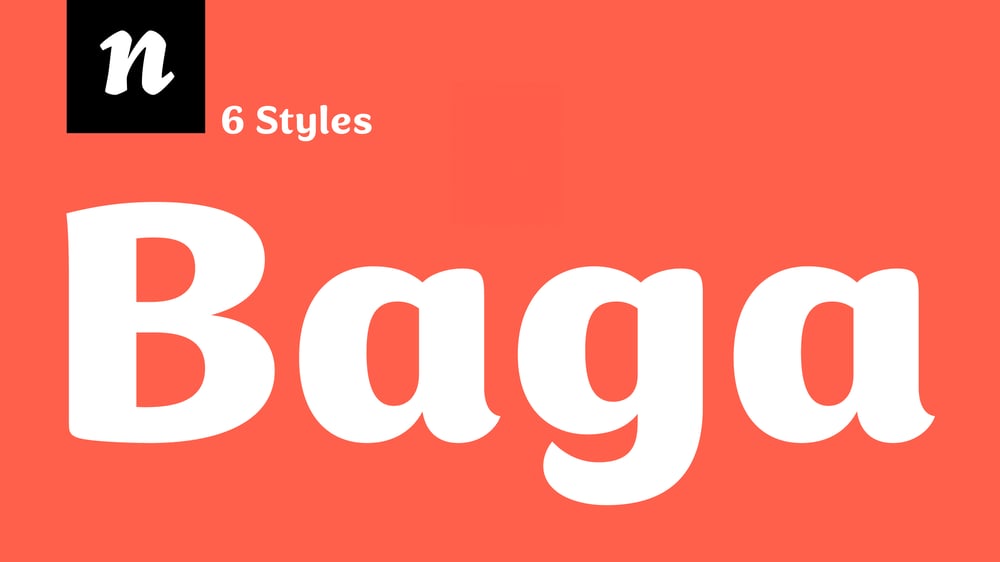
Baga Font Family was designed by Joana Correia and published by Nova Type Foundry. Baga contains 5 styles and family package options. Baga is a soft display typeface with five weights. Its smooth and inviting shapes are great for packaging and branding. Baga is a stylistic set with two stories, a and g, to help with legibility in smaller sizes. Even though Baga is a script, it covers the Latin Extended character set to make it flexible and valuable.